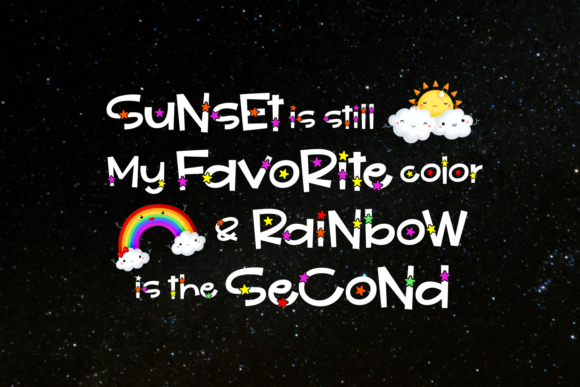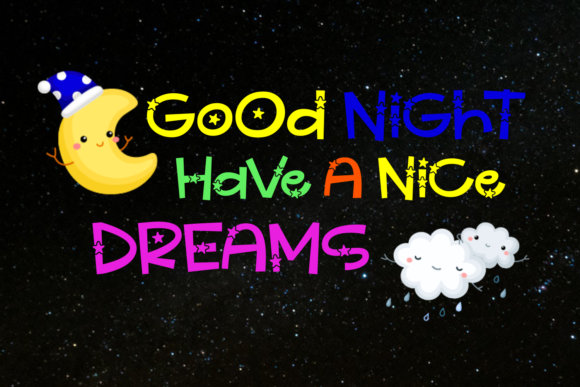
Myth Spotty Font – Free Download
Introduction to Myth Spotty Font
Myth Spotty is a beautiful, star-themed display font with incredible details.
Use it to add a joyful sparkle to any creative project .
Key Features of Myth Spotty Font
Why Choose Myth Spotty Font?